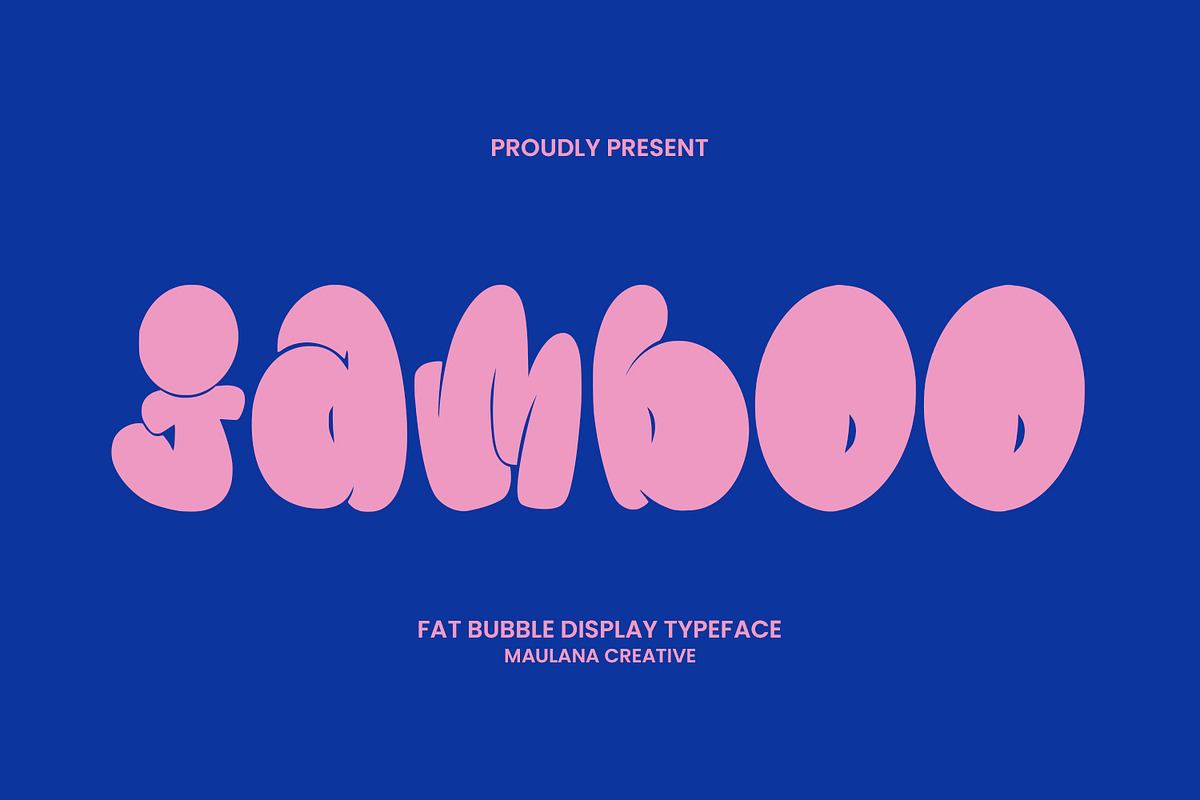
Jamboo Fat Bubble Display Font Free Download
Jamboo Fat Bubble Display Font Free Download is a bold, bubbly typeface that bursts with personality and fun. With its chunky letterforms and soft, rounded edges, Jamboo is perfect for playful branding, kids’ content, comic-style graphics, and anything that needs a loud, joyful statement.
This font is designed to stand out—whether you’re creating eye-catching logos, vibrant posters, or colorful merch. Its bubble-like aesthetic gives it a friendly, cartoonish vibe that appeals to all ages and creative styles.
Designers love Jamboo for its versatility and cheerful impact. It’s easy to read and full of character, making it ideal for both print and digital projects. Add a dose of bold fun to your work—download Jamboo Fat Bubble Display Font Free Download and let your designs pop with energy!